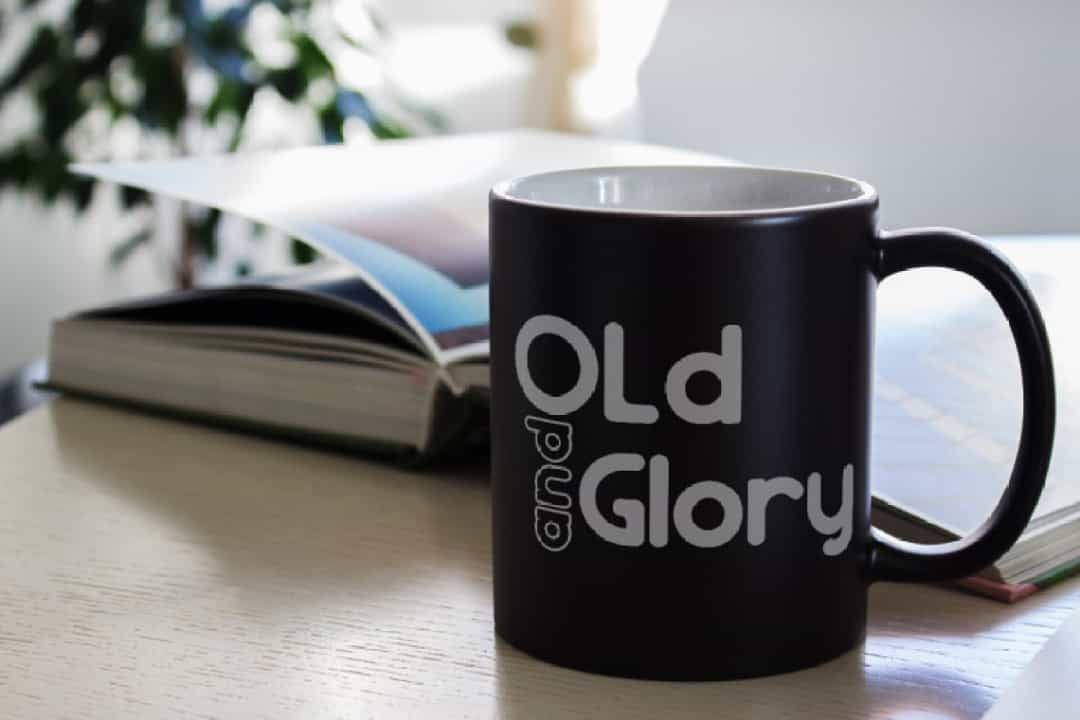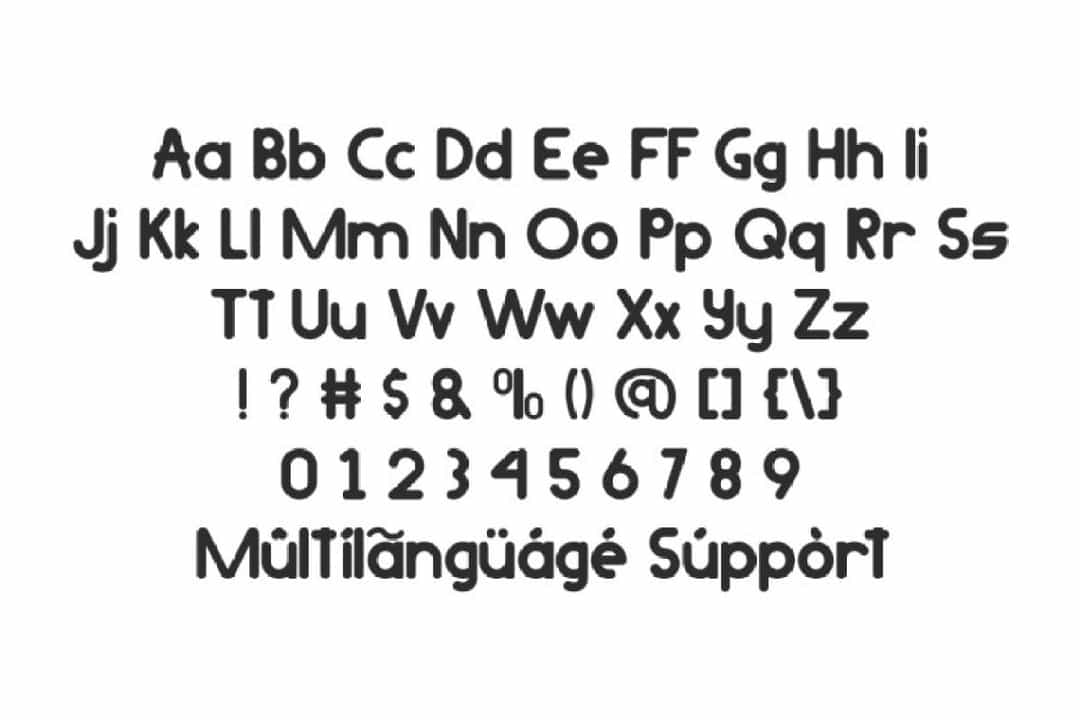
Metamora is an exciting sans serif font with comic edge forms and was specially designed to make any design instantly cool! From birthday invitations and superhero creations, to making signs or invitations. Whether it be creating invitations for birthday parties or making superhero icons – Metamora is sure to have what you’re looking for! With its fresh yet trendy appeal reminiscent of Comic Sans but without social media stigmata attached, the design was thoughtfully thought out to work harmoniously for instant cool designs!